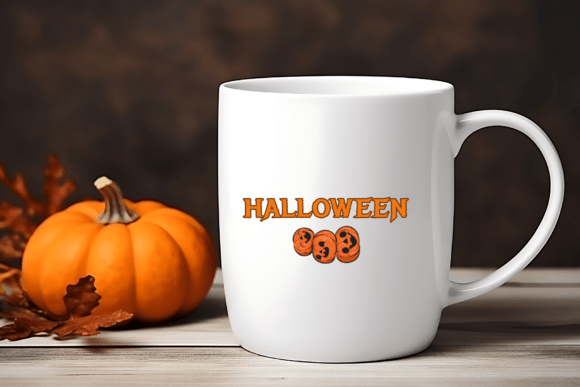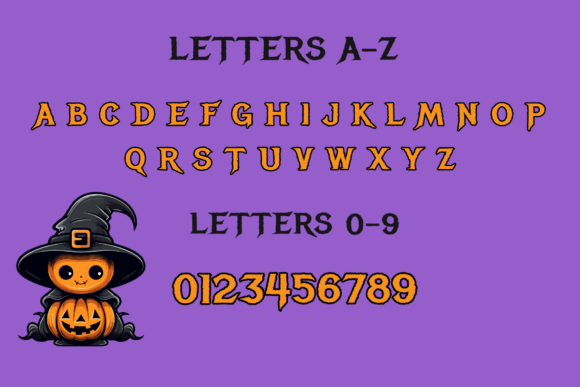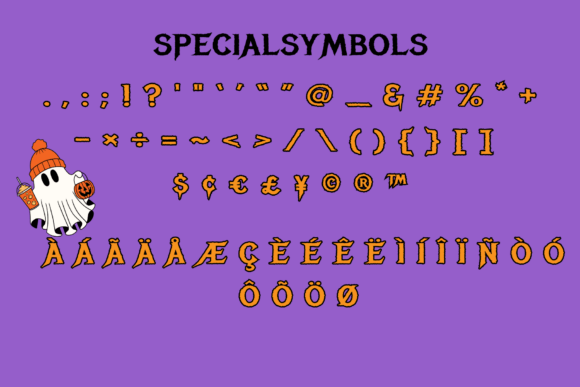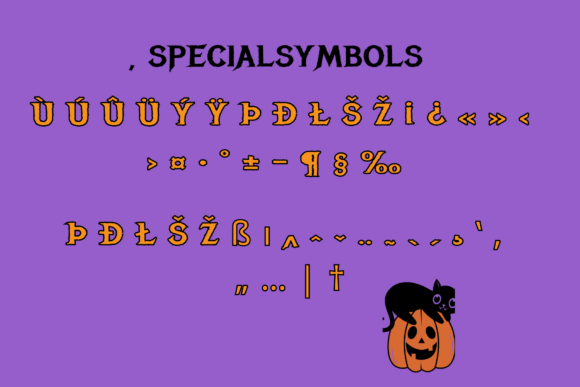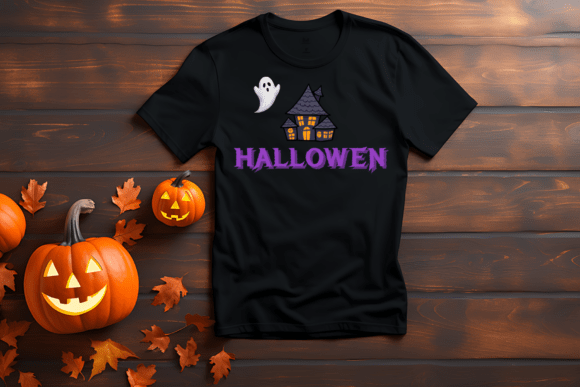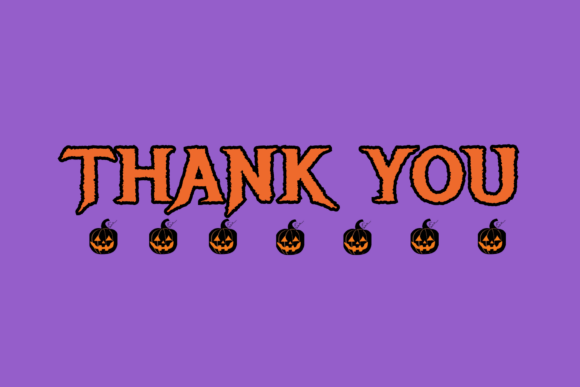
Unleash the Spook: Elevate Your Halloween Designs with the Perfect Halloween Font
Halloween is just around the corner, and with it comes the thrill of creating spook-tacular designs that capture the essence of this eerie celebration. Whether you’re a designer, crafter, or DIY enthusiast, having the right typography can make all the difference in crafting eye-catching and chilling designs. That’s where the Halloween Font comes in – a captivating and spooky display font designed to perfectly encapsulate the spirit of Halloween.
What Makes the Halloween Font So Special?
The Halloween Font is an ideal choice for creating a wide range of Halloween-themed designs, from posters and flyers to apparel, embroidery, and crafts. Its unique and captivating design ensures that your creations will stand out and grab attention. The font’s spooky and festive vibe is perfect for conveying the excitement and eeriness of Halloween, making it an essential tool for designers and crafters looking to create memorable and impactful designs.
Key Features of the Halloween Font
• Spine-Chilling Design: The Halloween Font boasts a unique and captivating design that perfectly encapsulates the spirit of Halloween.
• Versatile: Ideal for creating a wide range of Halloween-themed designs, including posters, flyers, apparel, embroidery, crafts, and more.
• Eerie and Festive: Perfect for conveying the excitement and eeriness of Halloween.
Use Cases for the Halloween Font
The Halloween Font is perfect for a variety of design projects, including:
• Halloween Posters and Flyers: Create eye-catching and spooky posters and flyers that will grab attention and set the tone for your Halloween event.
• Apparel and Accessories: Design Halloween-themed t-shirts, hoodies, and accessories that will make your friends and customers scream with delight.
• Embroidery and Crafts: Add a touch of Halloween spirit to your embroidery and craft projects with this unique and festive font.
• Social Media Graphics: Create spooky and engaging social media graphics that will make your followers shiver with excitement.
Why Choose the Halloween Font?
• Unique Design: The Halloween Font boasts a unique and captivating design that will set your designs apart from the rest.
Tips for Using the Halloween Font
• Experiment with Different Sizes: The Halloween Font looks great in a variety of sizes, from small and subtle to large and bold.
• Pair with Other Fonts: Try pairing the Halloween Font with other fonts to create a unique and eye-catching design.
• Use in Combination with Images: The Halloween Font looks great in combination with spooky images and graphics.
Font Name Halloween Font
Author Kik Design